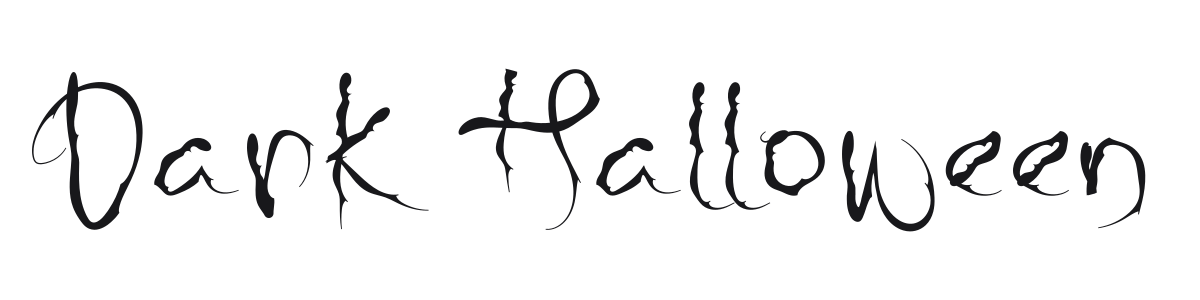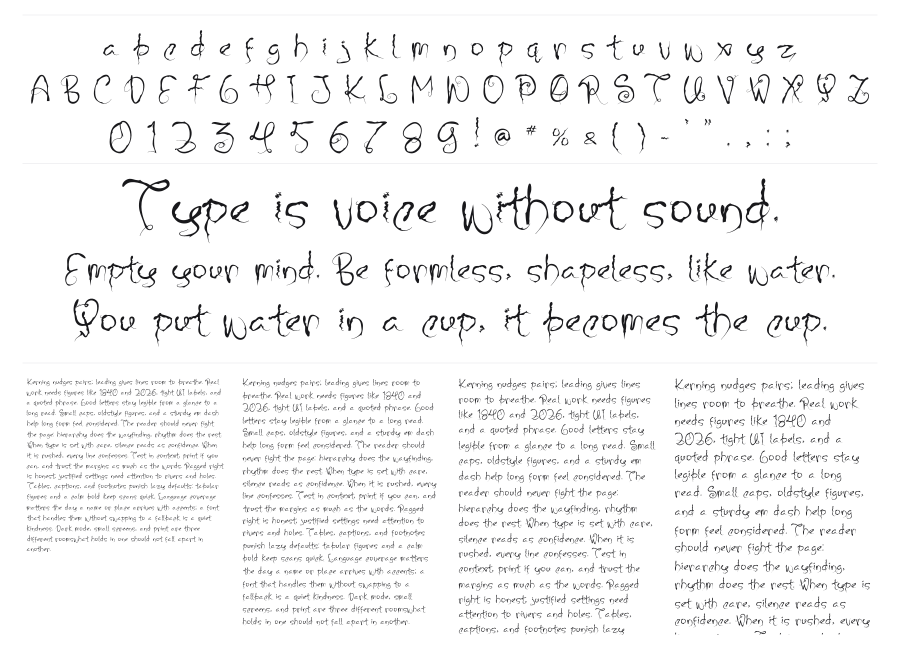
Dark Halloween
Dark Halloween is a scratchy hand-drawn horror font that looks like it was written with a dying brush in the dark. The thin, irregular strokes split and splinter at the ends, giving each character a frayed, unsettling quality. It works best at large sizes where the decay and texture can breathe.